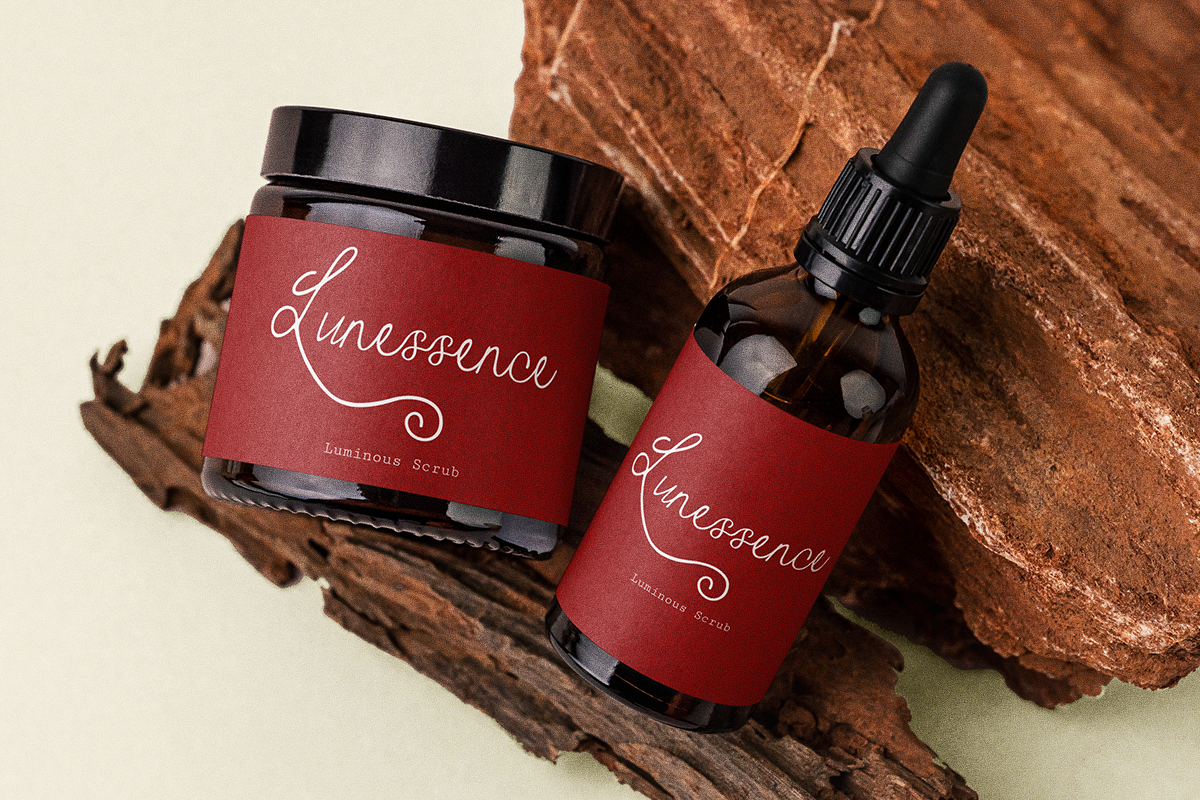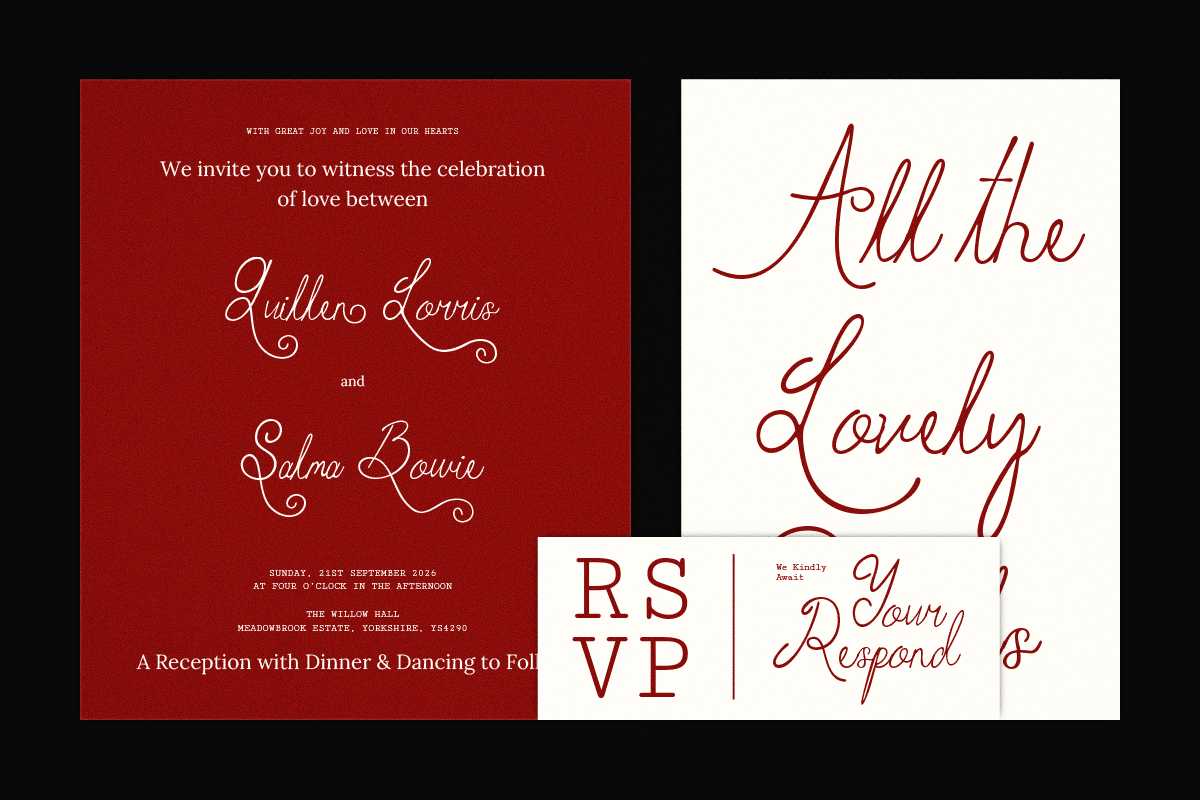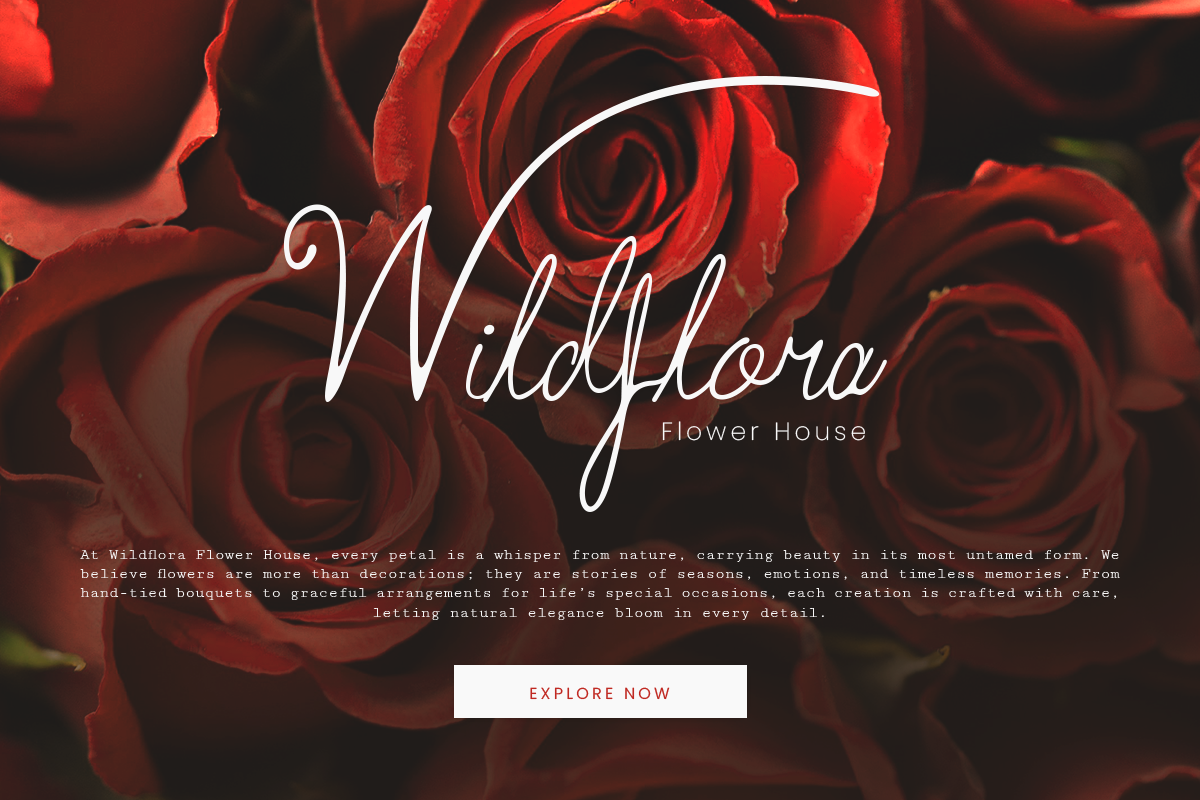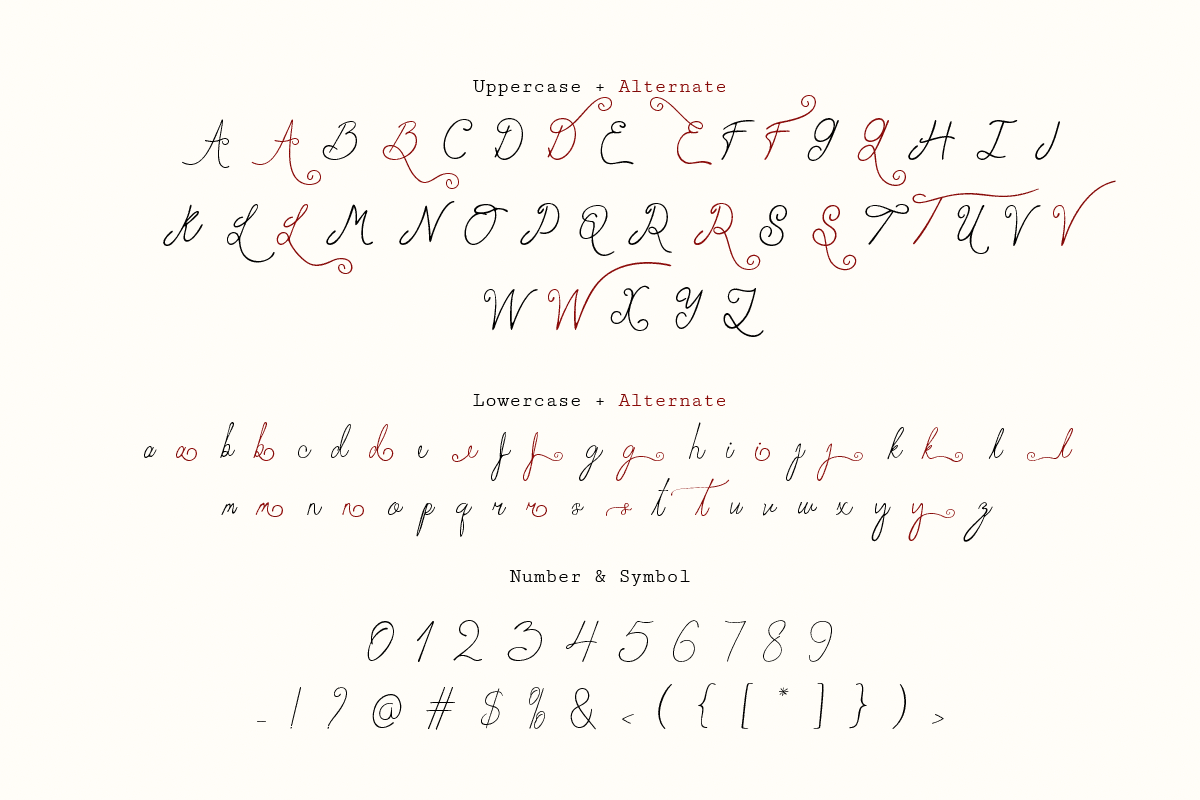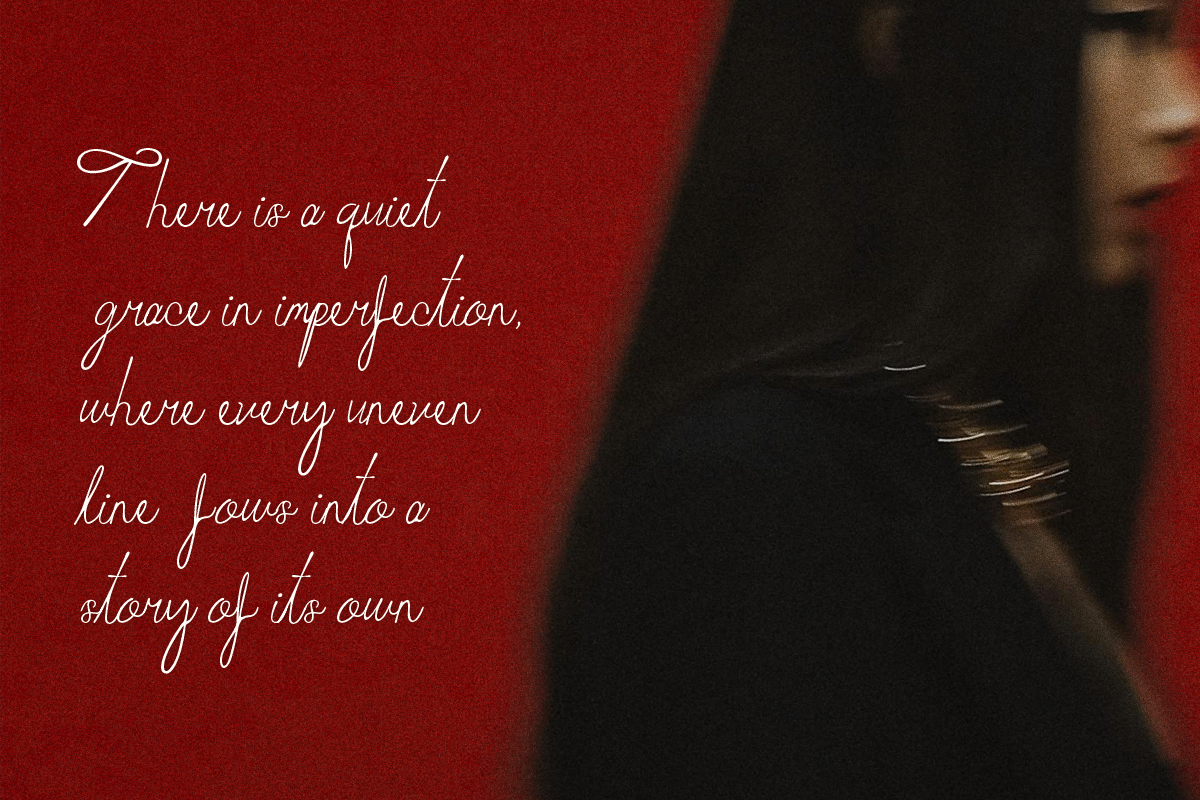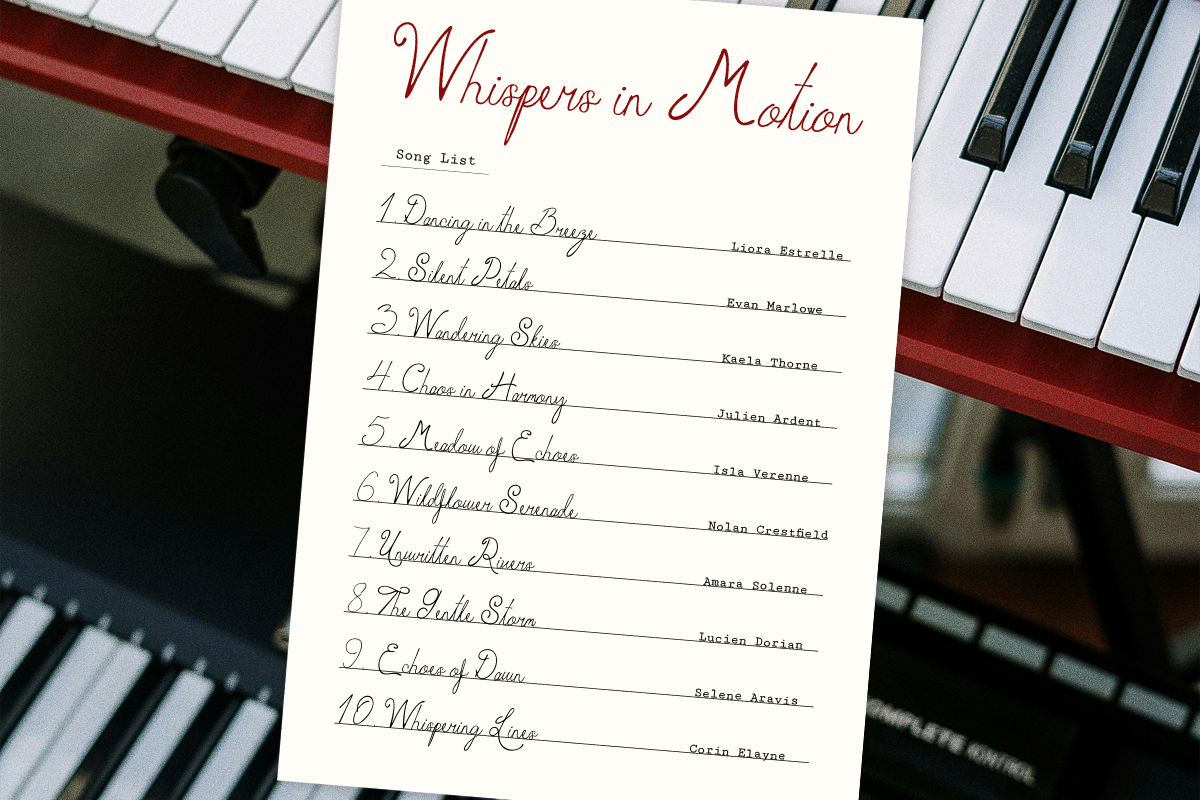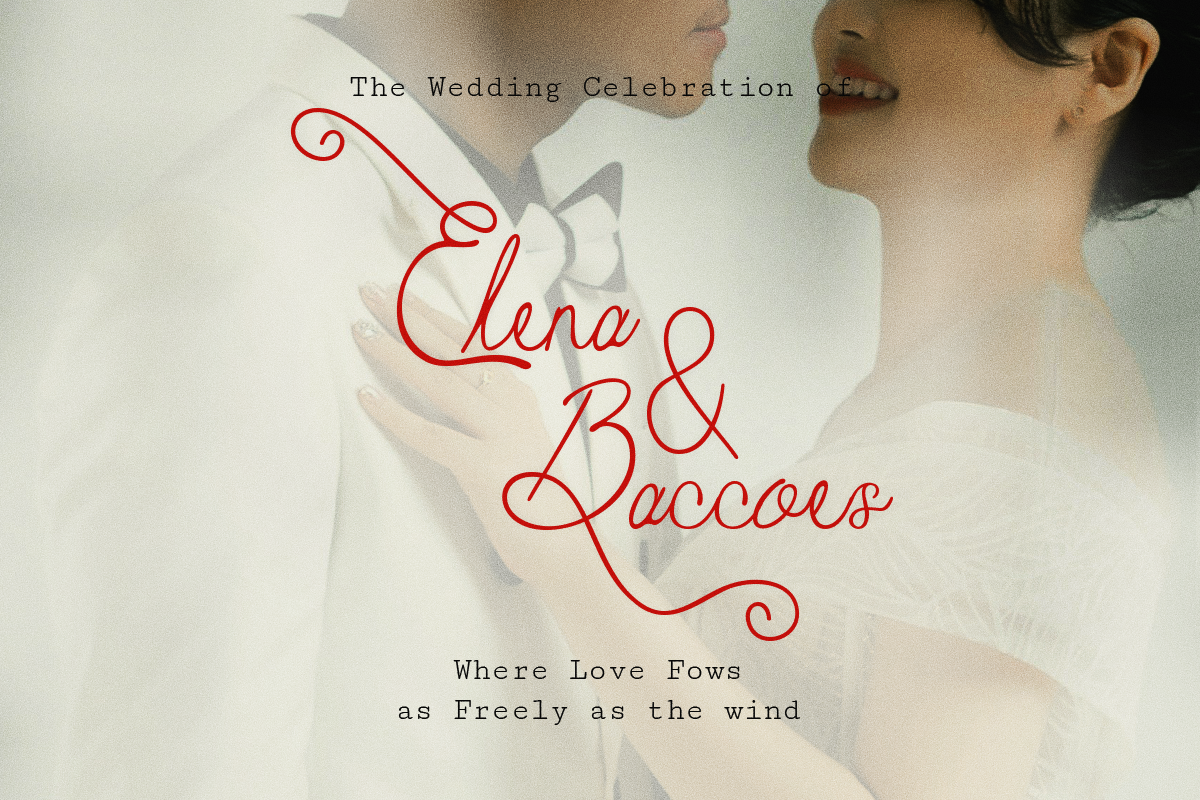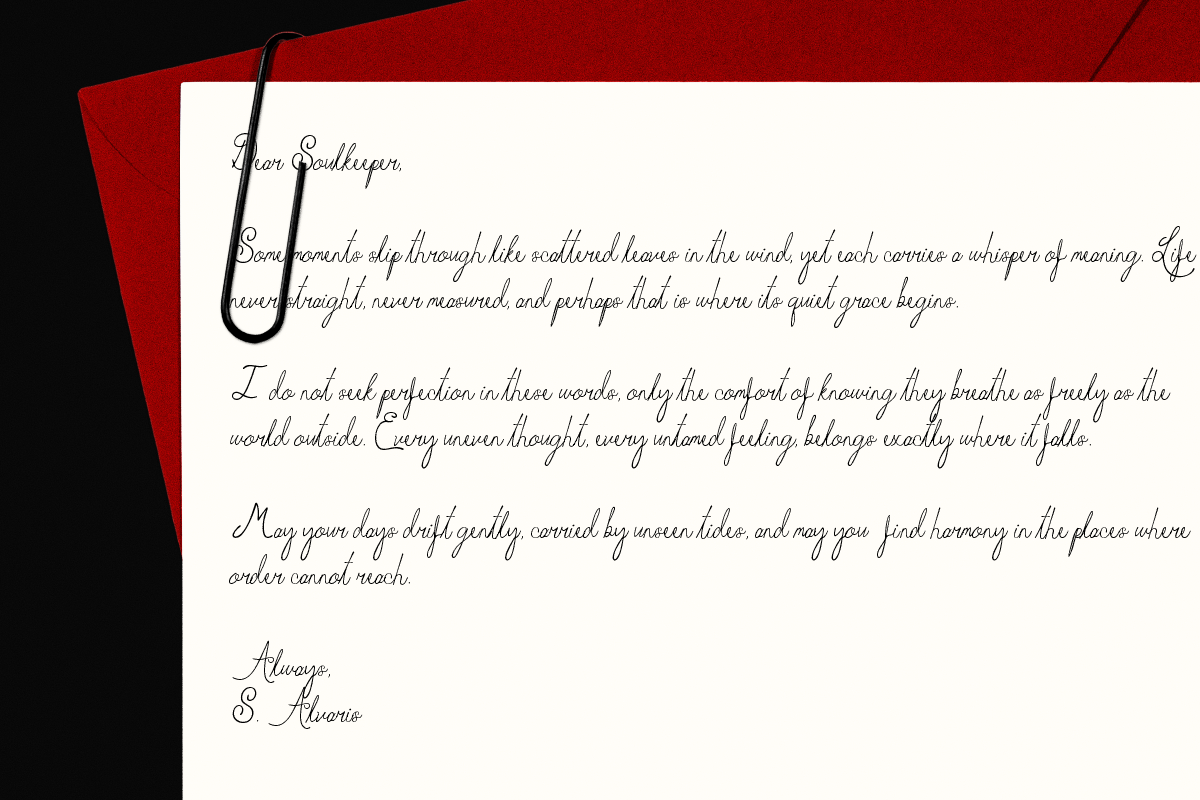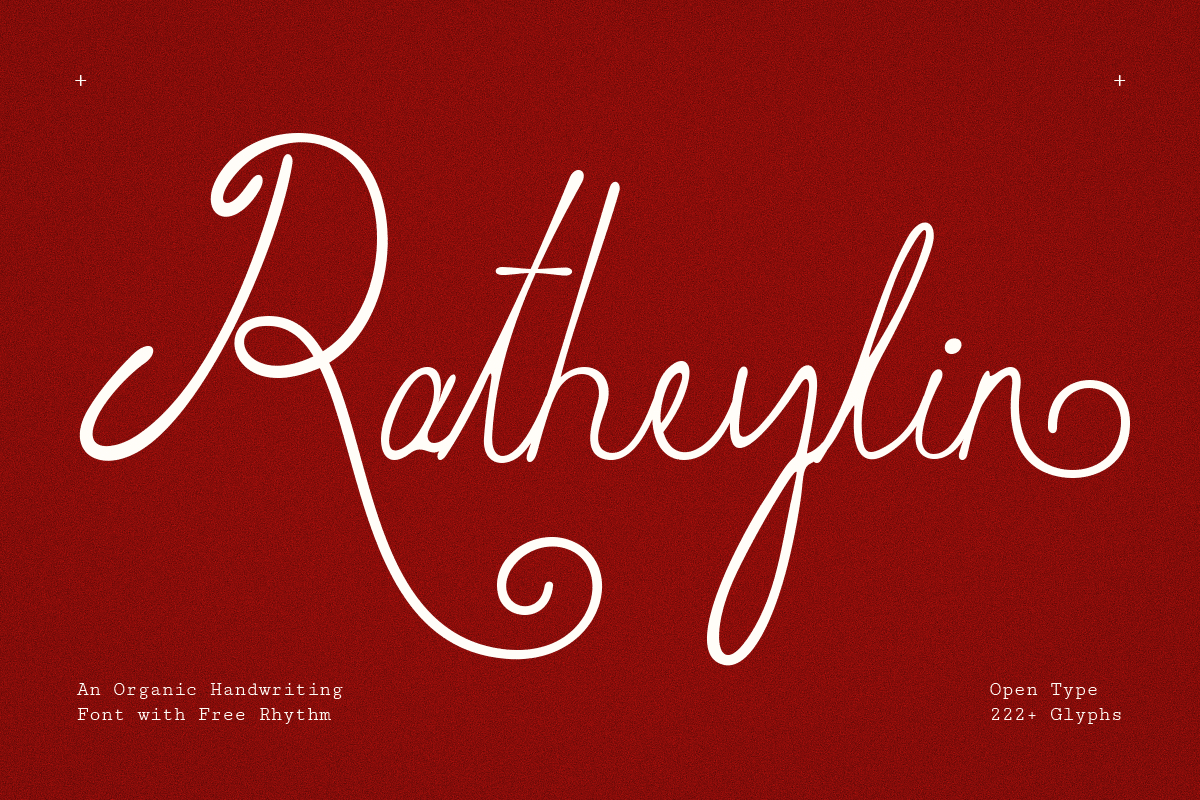
Ratheylin - Organic Handwritten Font
Ratheylin is an organic handwriting font that captures the natural beauty and warmth of hand-drawn lettering. With its smooth, flowing strokes and imperfect charm, this font adds a personal and authentic touch to any design. Perfect for branding, quotes, invitations, packaging, and social media, Ratheylin brings a sense of creativity and sincerity to your projects.
- Upper & Lowercase alternates
- Numerals & punctuation